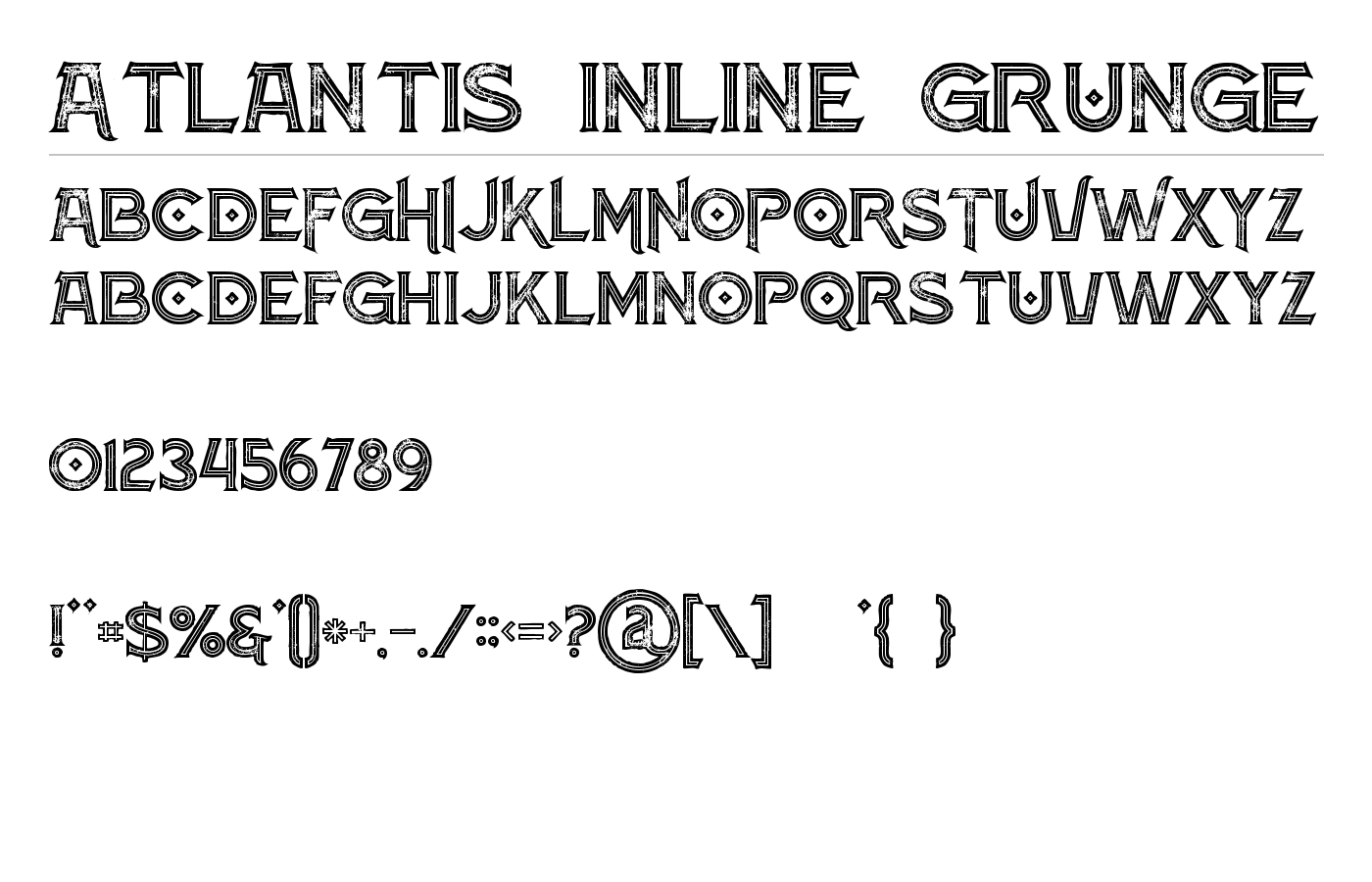
Atlantis Inline Grunge is a bold, decorative display font with a unique inline and distressed texture that gives it a rugged, vintage feel. Featuring sharp, angular letterforms with high contrast strokes and playful geometric details, this all-caps typeface is perfect for eye-catching headlines, posters, and branding that aims to convey an adventurous or edgy personality. Its distinctive grunge style and ornamental shapes make it ideal for creative projects needing a striking, unconventional look.
Atlantis Inline Grunge Font
About Atlantis Inline Grunge Font